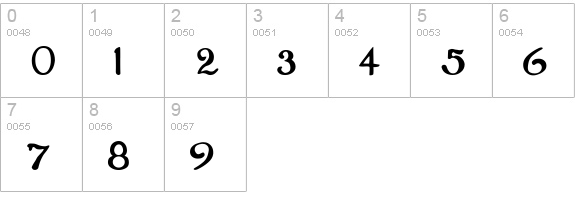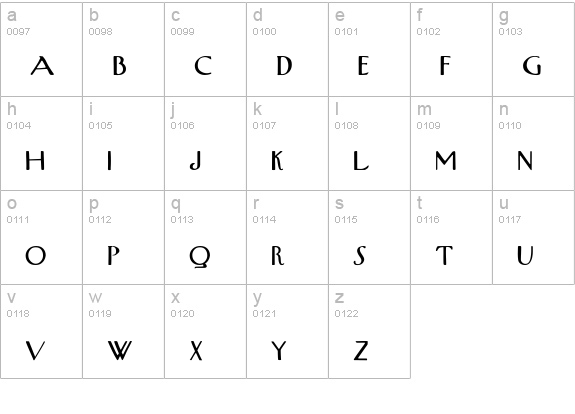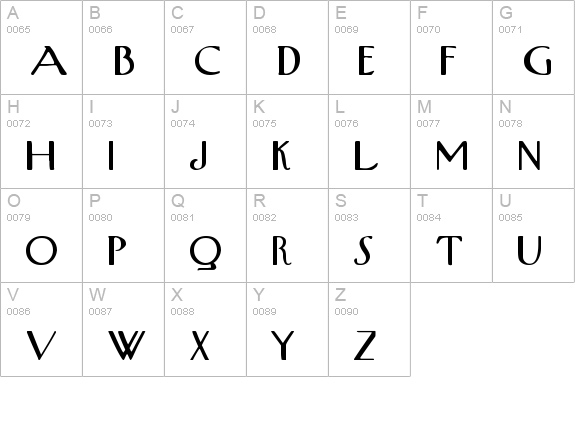
UpperWestSide Font Details
UpperWestSide font is a stunning and sophisticated typeface that exudes elegance and refinement. With its clean lines and graceful curves, this font is perfect for adding a touch of sophistication to any design project. Whether you're creating a wedding invitation, a logo for a high-end brand, or a stylish magazine layout, UpperWestSide font is sure to make a lasting impression. This font features a unique blend of modern and classic elements, making it versatile for both contemporary and traditional designs. Its tall and slender letterforms are reminiscent of the iconic skyscrapers that line the streets of New York's Upper West Side, while its subtle flourishes add a touch of flair and grace. One of the best things about UpperWestSide font is that it is completely free. Yes, you read that right – this exquisite font is freely available to download at FontsMarket.com. No need to worry about breaking the bank or restricting your creative freedom – with UpperWestSide font, you can bring your design visions to life without any cost. Not only is UpperWestSide font visually stunning, but it is also incredibly easy to use. Its well-crafted letterforms ensure legibility at any size, making it perfect for both headlines and body text. The font also includes a wide range of characters, including uppercase and lowercase letters, numbers, punctuation marks, and special symbols, allowing you to create visually cohesive and harmonious designs. So why wait? Download UpperWestSide font today from FontsMarket.com and unlock a world of creative possibilities. Whether you're a professional designer, a hobbyist, or simply someone looking to add a touch of sophistication to their personal projects, UpperWestSide font is a must-have in your font collection. Discover the elegance and beauty of this font and watch your designs come to life.